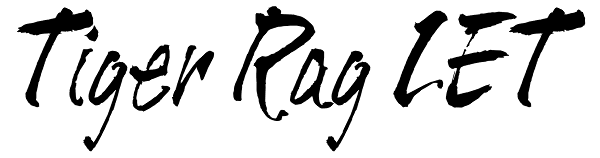
Tiger Rag
Japanese calligraphy inspired English calligrapher John Viner to create this dramatic, informal typeface. This extensive font and the trend for casual display typography make it a fine selection for any application where a fresh, random effect is...